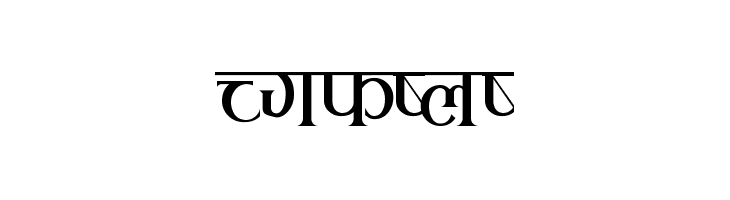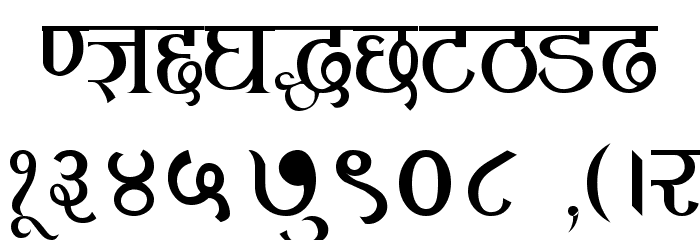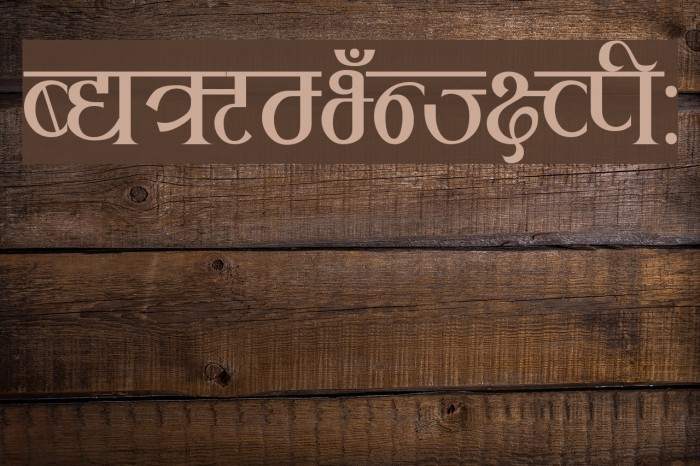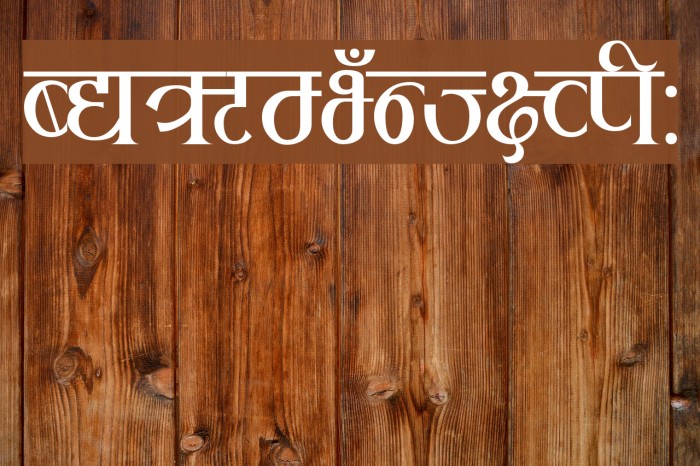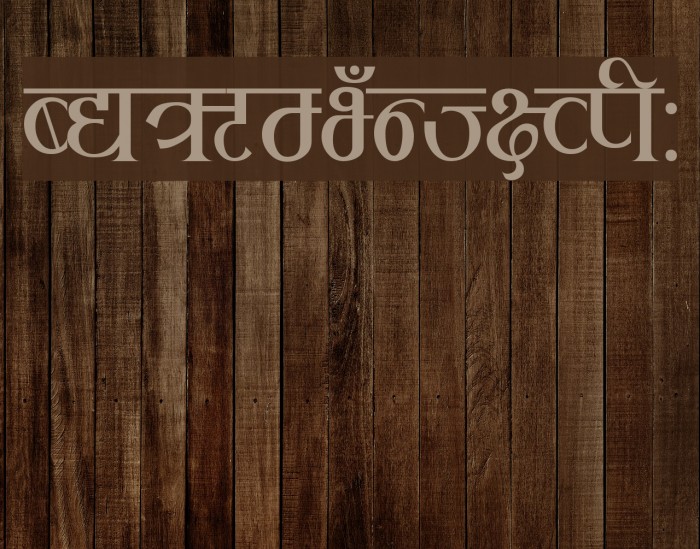
Rukmini Font
Rukmini Description
This font is a traditional Devanagari script with a classic and elegant appearance. It features distinct, rounded characters with a moderate stroke contrast that enhances readability. The script is well-suited for formal and traditional contexts, offering a sense of heritage and cultural richness. The characters are evenly spaced, providing a balanced and harmonious look. The numerals are clear and consistent with the overall style, making them easily distinguishable. This font is ideal for projects that require a touch of tradition and authenticity.
| Overall Style | Classic |
| Use Case | Headlines, Body text |
| Proposed Projects | Ideal for cultural publications, traditional event invitations, and educational materials in Devanagari script. |